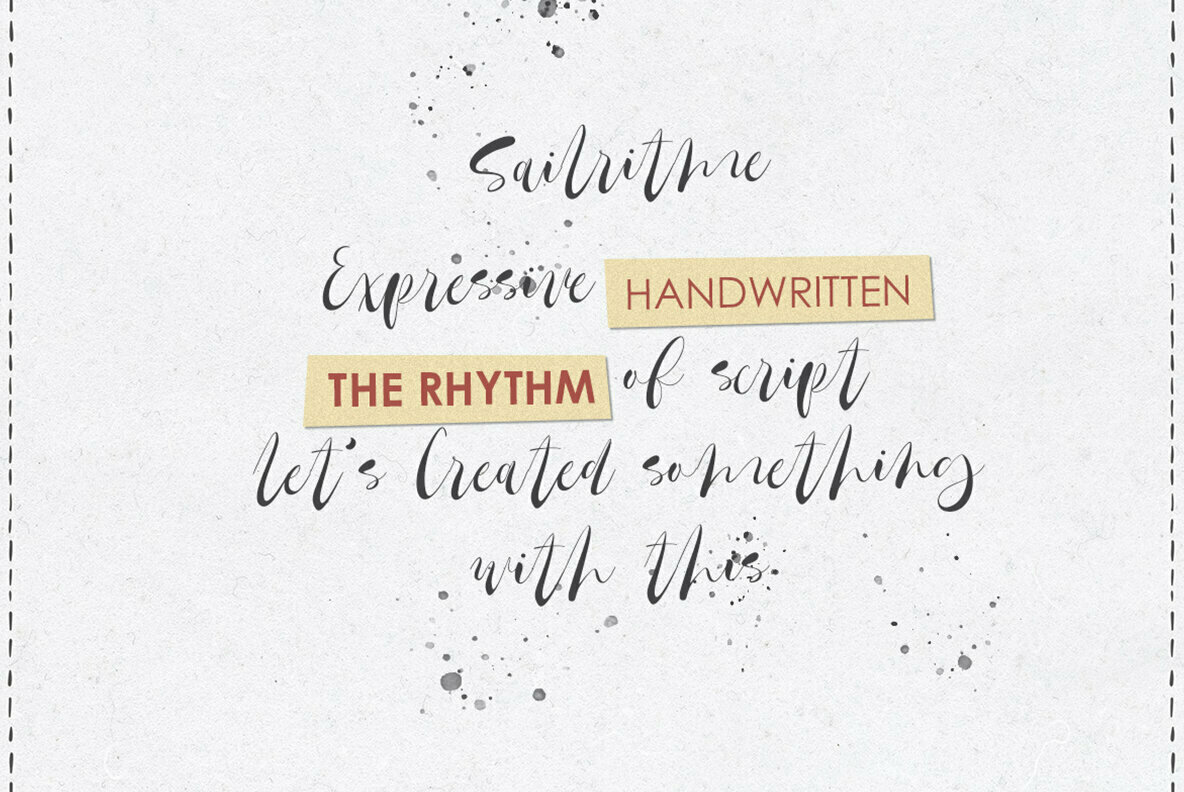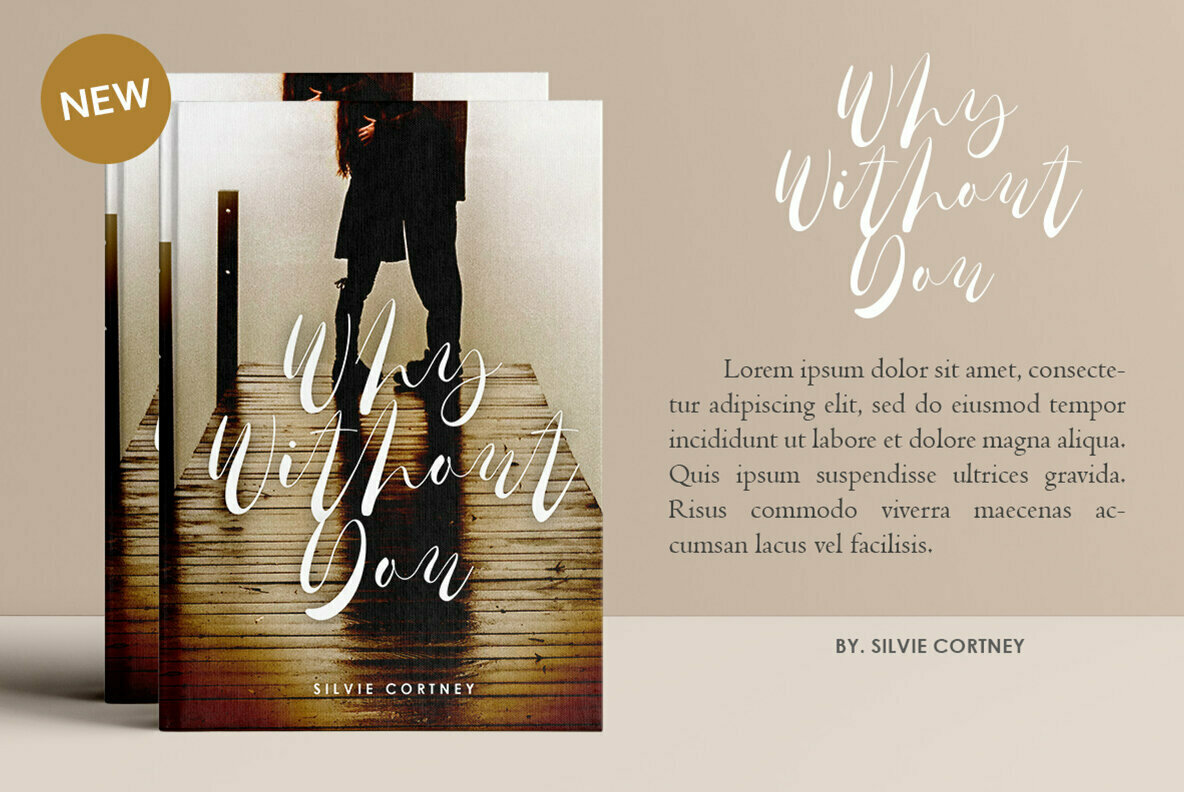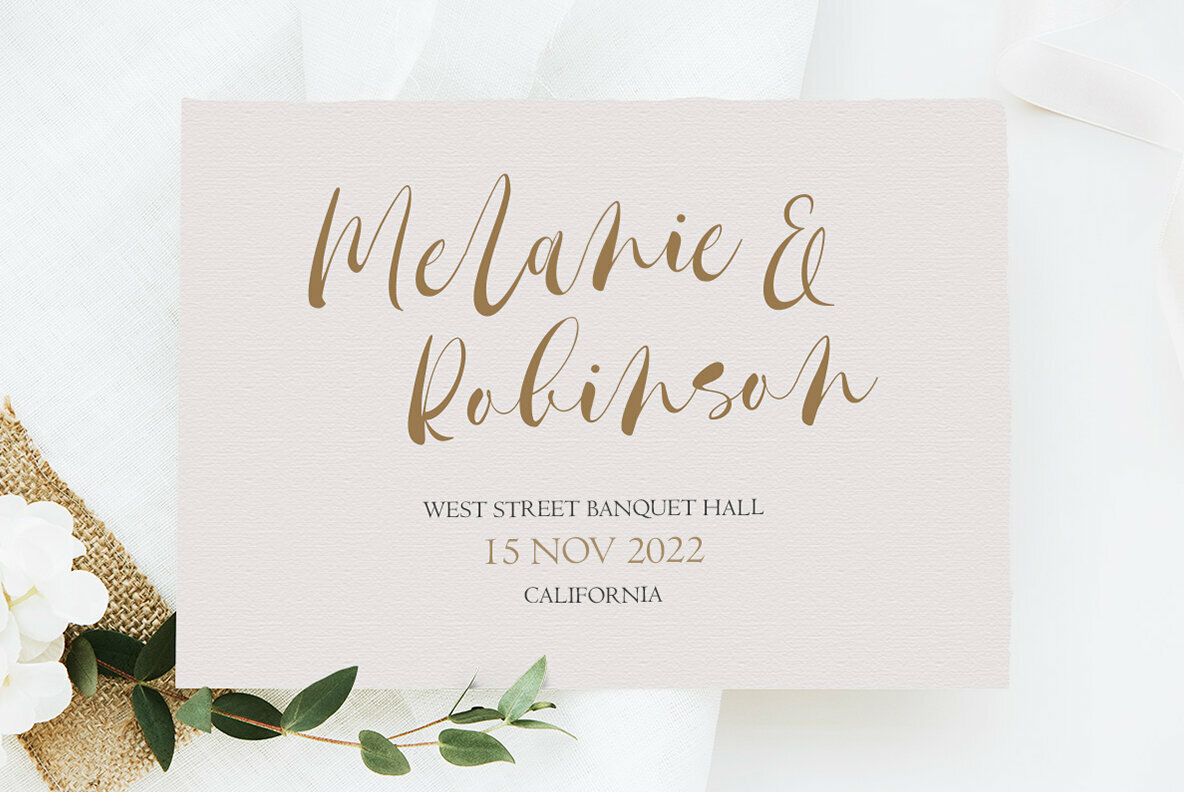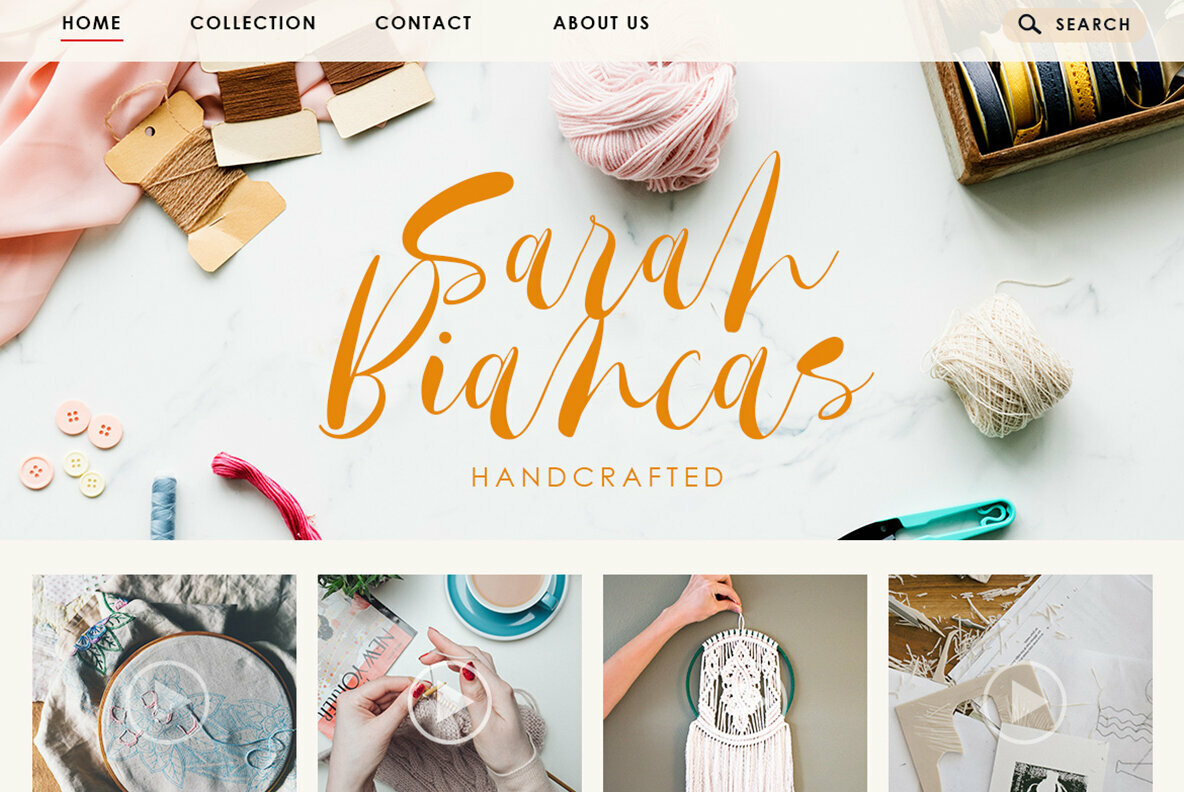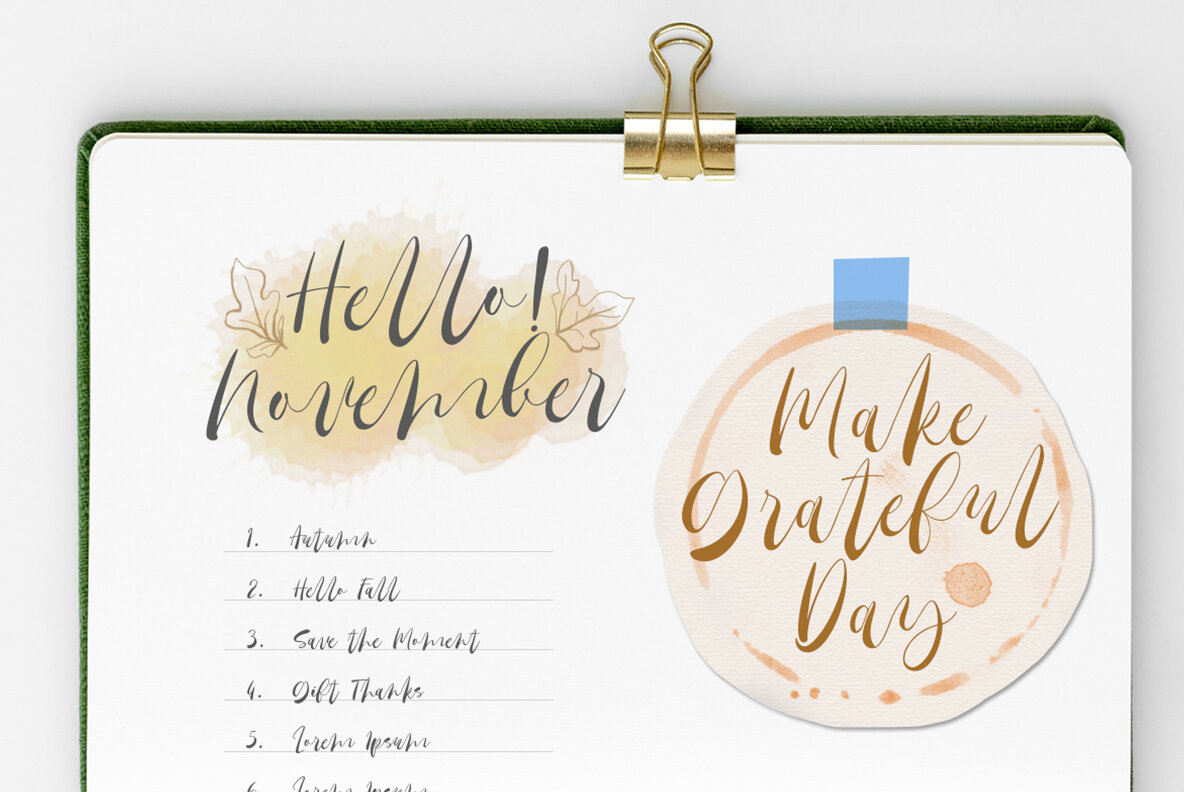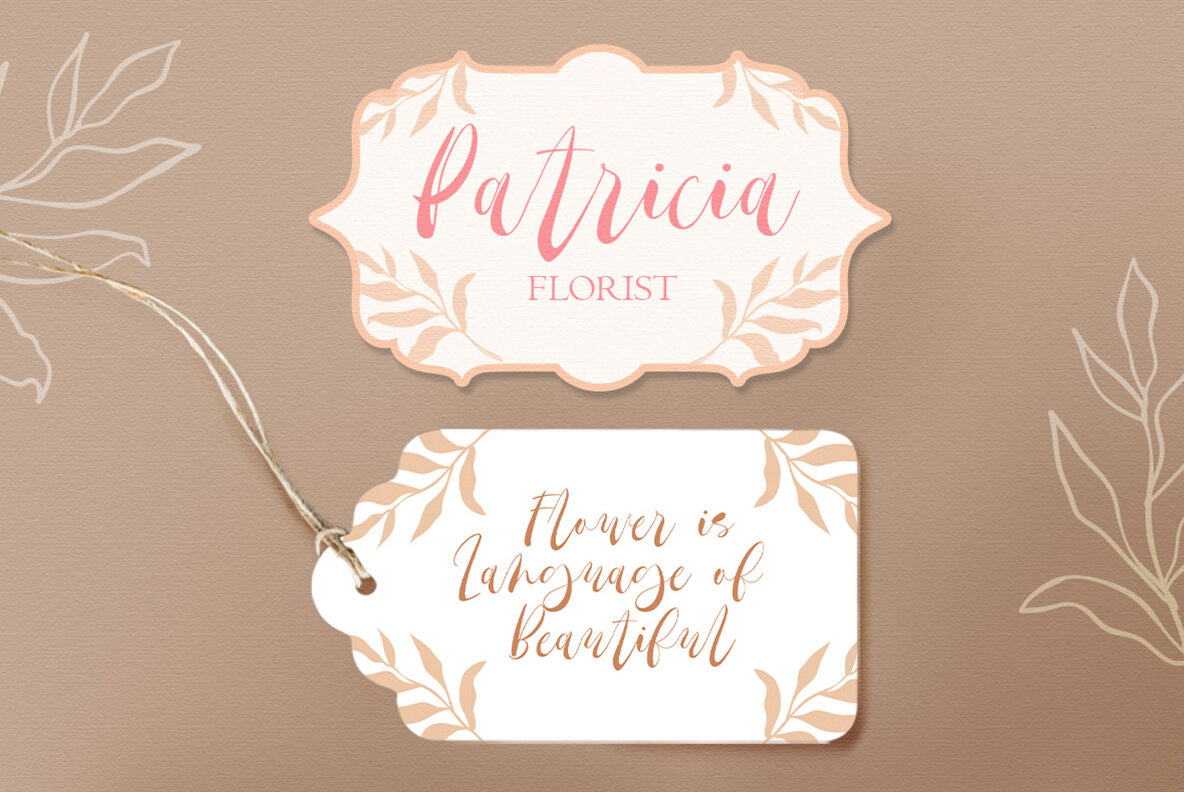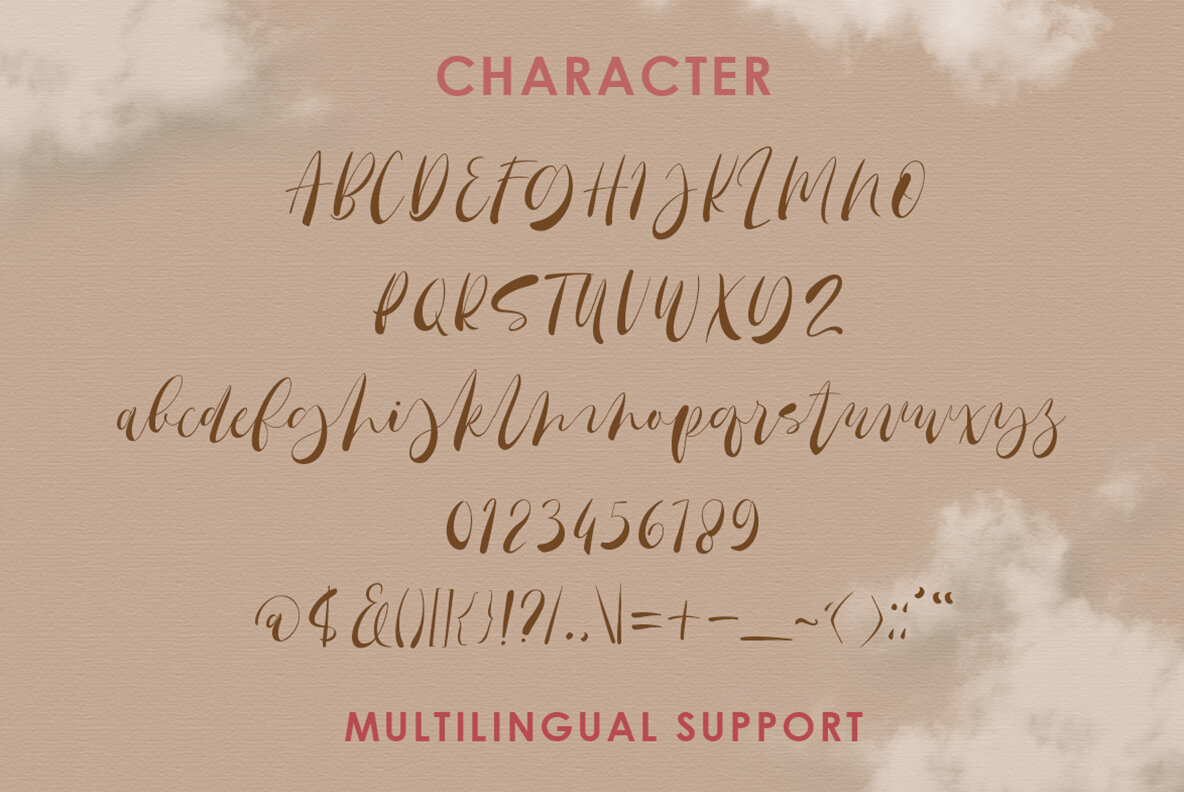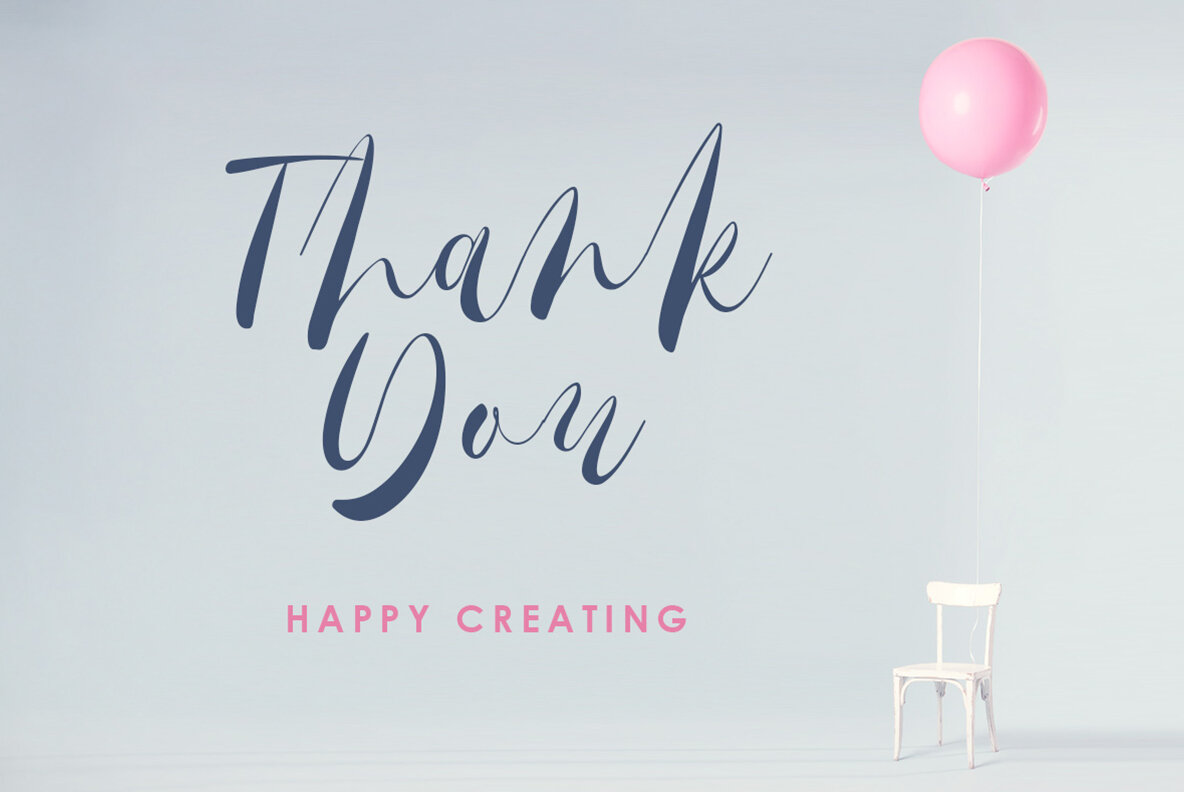
Sailritme Font
Sailritme Regular
Introducing, Sailritme. A handwritten script. This font perfectly made to be applied especially in logo, and the other various formal forms such as invitations, labels, logos, magazines, books, greeting / wedding cards, packaging, fashion, make up, stationery, novels, labels or any type of advertising purpose.
Features :
- uppercase & lowercase
- numbers and punctuation
- multilingual